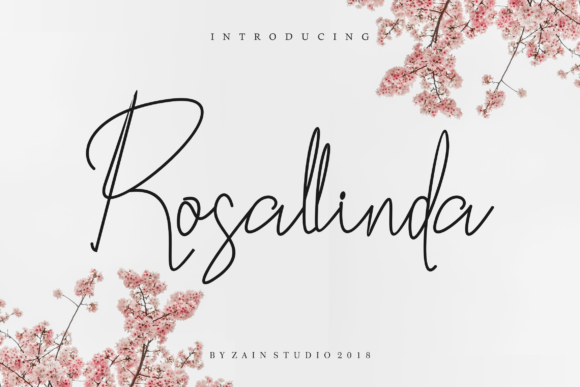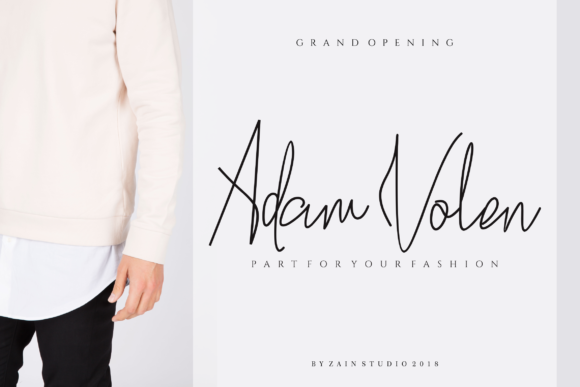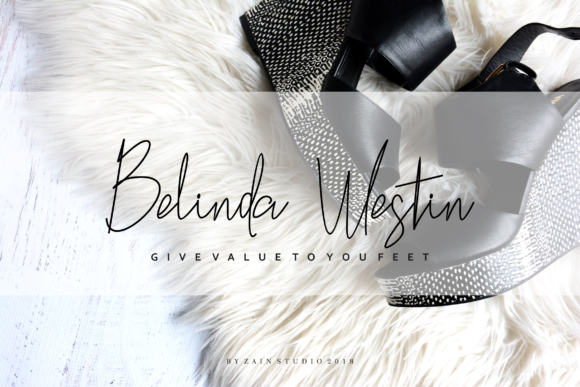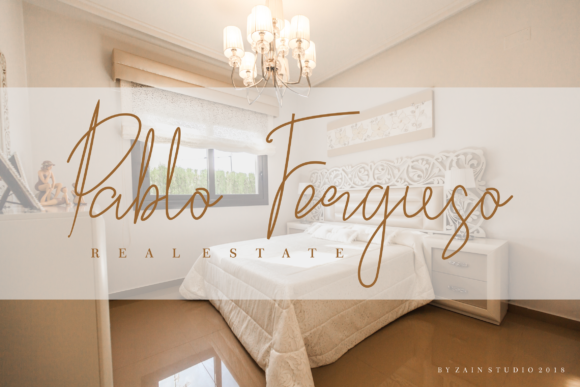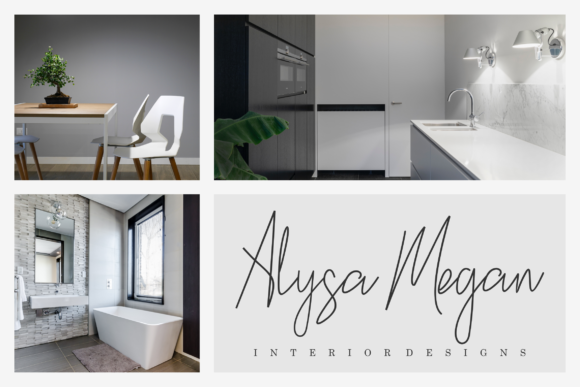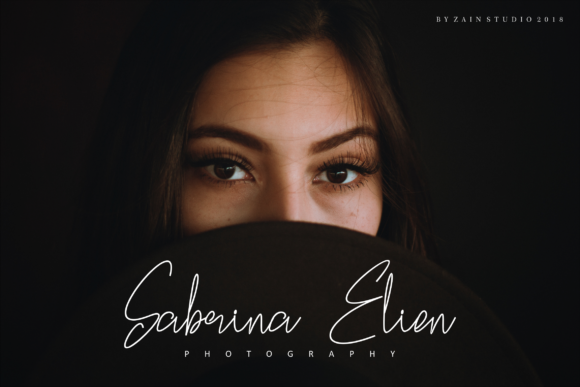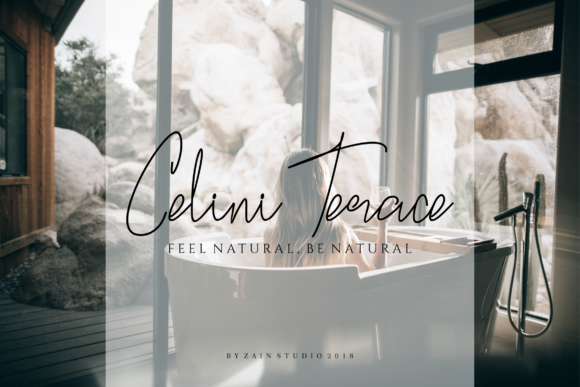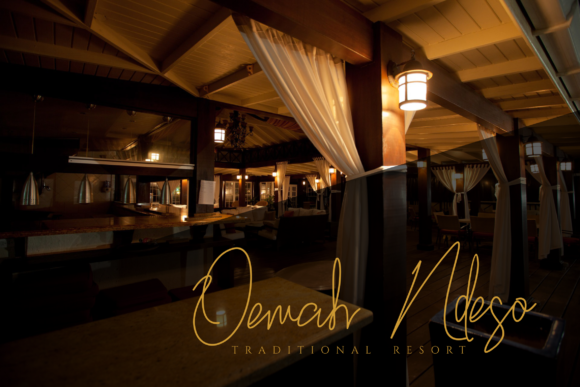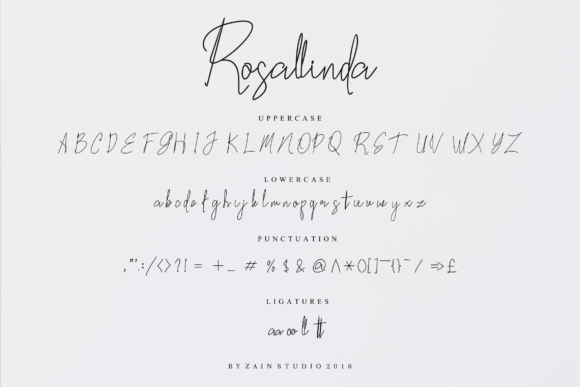
Rosallinda Font
About Rosallinda Font
Introducing The Rosallinda, a handwritten signature script font that exudes a luxurious style, adding a personal charm to your designs. This font goes beyond the ordinary, offering a touch of sophistication that’s perfect for a range of applications, including logo branding projects, home ware designs, boutiques, hotel names, men’s apparel designs, product packaging, and as a stylish text overlay to any background image.
The Rosallinda font is designed to bring a sense of personal charm and elegance to your projects. Its handwritten signature script adds a bespoke touch, making it an ideal choice for logo branding where a unique and luxurious style is desired. The distinctive strokes and fluid lines contribute to a sophisticated visual identity.
The versatility of The Rosallinda extends to home ware designs, boutiques, and hotel names, where a luxurious font can enhance the overall ambiance and branding. Men’s apparel designs benefit from the font’s stylish and refined aesthetic, creating a distinctive and upscale look.
For product packaging, The Rosallinda adds a touch of sophistication that sets your products apart. The font also works seamlessly as a stylish text overlay to any background image, making it a versatile choice for various design contexts.
In conclusion, The Rosallinda is more than just a font; it’s a luxurious design tool that elevates your projects with a personal charm. Whether you’re working on branding, home ware designs, boutiques, or product packaging, embrace the sophistication of The Rosallinda and let it add a touch of elegance to your creative endeavors.